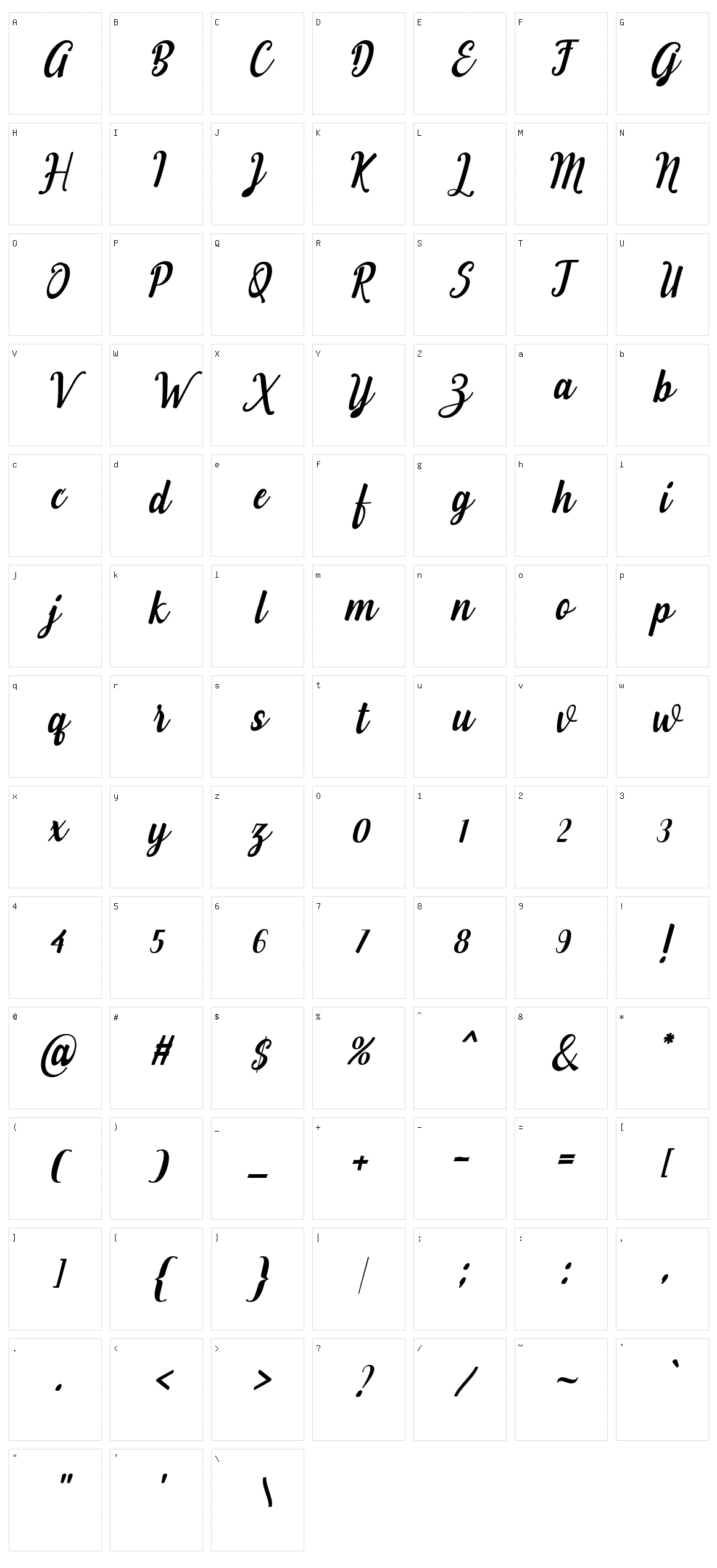
The free font Love of Yellow is carefully designed by Aquilera Saiman, showcasing a thoughtful balance of creativity and usability and falls under the Script font style. When you download the ZIP file, it contains only 163.3 KB of font files, making it lightweight and quick to download. Please review the license details below to understand permitted usage and distribution rights. If license information is not available, we recommend using this font for personal projects only or contacting the author directly for commercial usage permissions.